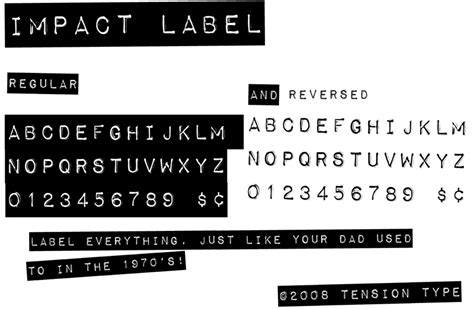
Impact Label Font Download
Impact Label Font. 2,734,847 downloads (101 yesterday) 89 comments. Web impact label is a font by tension type that has a typewriter style and a tension effect.
You can download it for free and use it for. Web impact label à by tension type. Web impact label is a font by tension type that has a typewriter style and a tension effect. 2,734,847 downloads (101 yesterday) 89 comments.
2,734,847 downloads (101 yesterday) 89 comments. 2,734,847 downloads (101 yesterday) 89 comments. You can download it for free and use it for. Web impact label à by tension type. Web impact label is a font by tension type that has a typewriter style and a tension effect.